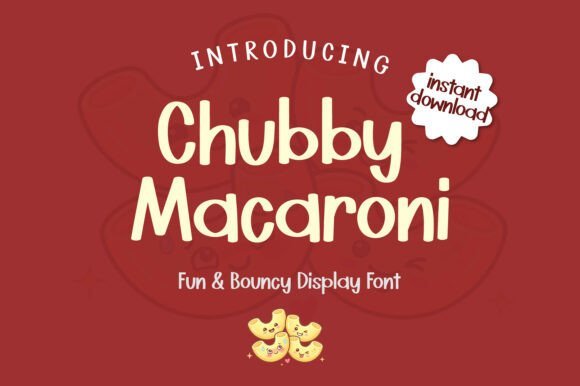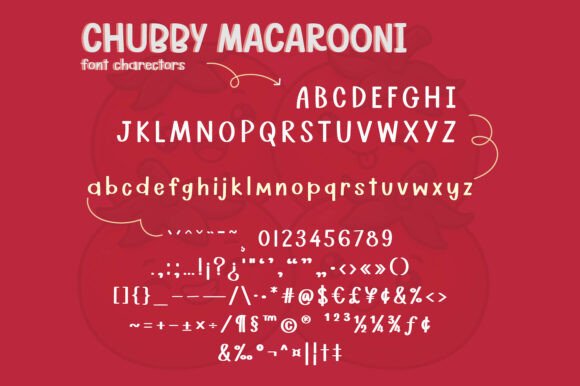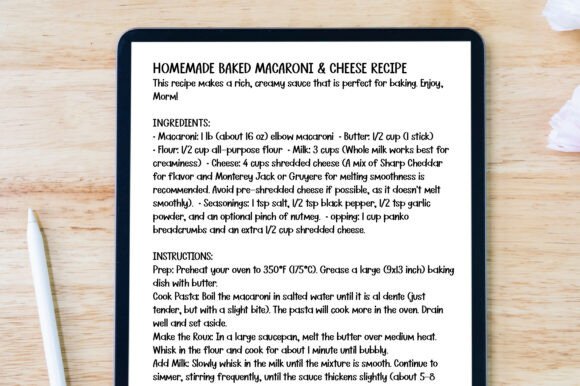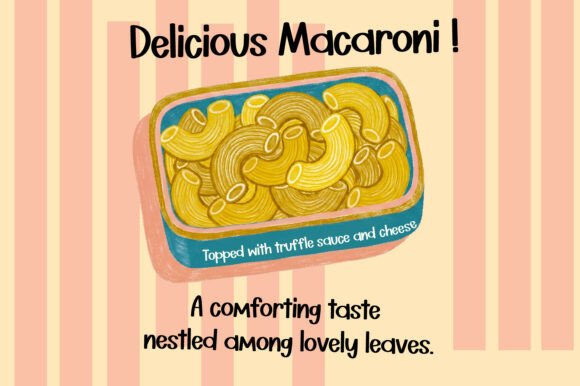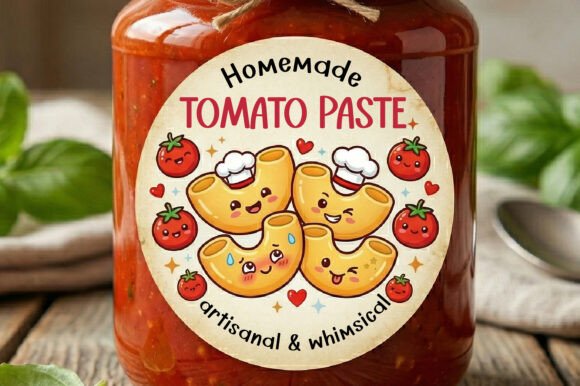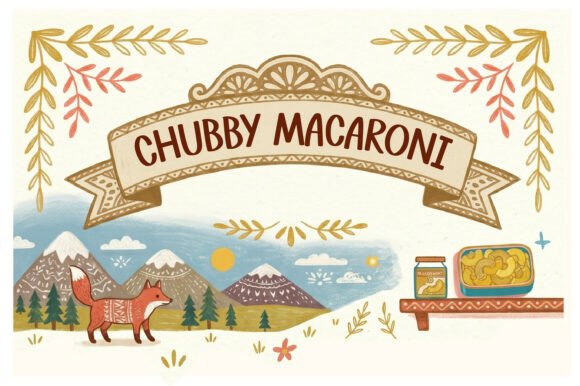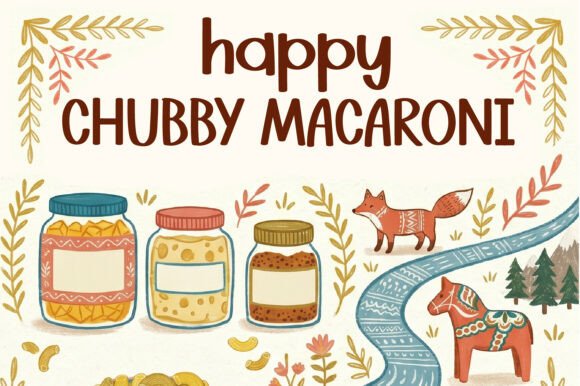
Meet Your New Best Friend: Chubby Macaroni Font
Have you ever been stuck in a creative rut, frantically scrolling through font options in search of the perfect match for your digital project? I know I have! But then, it happens – you stumble upon a font that’s so adorable, so charming, and so uniquely yours that you can’t help but smile. That’s exactly what Chubby Macaroni Font is all about – bringing a touch of whimsy and fun to your designs.
Designed with love by mtk studio, this beautifully squishy and playful handwritten font is a must-have for any creative project. Whether you’re crafting digital planners, designing stickers, or creating social media graphics, Chubby Macaroni Font adds a friendly and approachable vibe to every word. Its thick, smooth outlines make it perfect for cutting on machines like Cricut and Silhouette, and its versatility knows no bounds.
Chubby Macaroni Font Key Features
- Font Family: Chubby Macaroni Font, a playful and whimsical sans-serif font.
- Size: The font family includes 6 different font weights, ranging from 100 to 900, providing flexibility for various design needs.
- Unique Characteristics: The font’s distinctive rounded edges, chunky lines, and irregular shapes make it perfect for adding a touch of playfulness and whimsy to designs.
- Language Support: Supports a wide range of languages, including Latin, Greek, and Cyrillic, making it suitable for global branding and design applications.
Chubby Macaroni Font Review
Overall, I think the Chubby Macaroni Font is a fun and playful addition to any design project. ✨ The font’s unique, rounded style makes it perfect for creating a whimsical or retro feel.
The font’s flexibility is also a major plus. It works well in both display and body text, and it’s even suitable for use in logos and branding materials. ✨ The font’s weight and line variation make it easy to use in a variety of contexts.
- ⚠️ The font may be a bit too playful for more serious or formal design projects. It may not be the best choice for, say, a financial report or a corporate brochure.
- ⚠️ The font’s rounded style can sometimes make it difficult to read, particularly in smaller sizes or when used in long blocks of text.
Overall, I think the Chubby Macaroni Font is a solid choice for designers looking to add some personality to their projects. While it may have some limitations, its unique style and flexibility make it a great addition to any design arsenal.
The Chubby Macaroni Font is perfect for:
- Food packaging and branding
- Playful website headers and footers
For optimal results, pair the Chubby Macaroni Font with bold, bright colors and whimsical graphics.
Is the Chubby Macaroni Font suitable for digital displays?
Yes, the Chubby Macaroni Font is designed to be legible on digital displays. However, it’s always a good idea to test the font on your specific display device to ensure optimal readability. Additionally, you may need to adjust font size or style to achieve the best results.